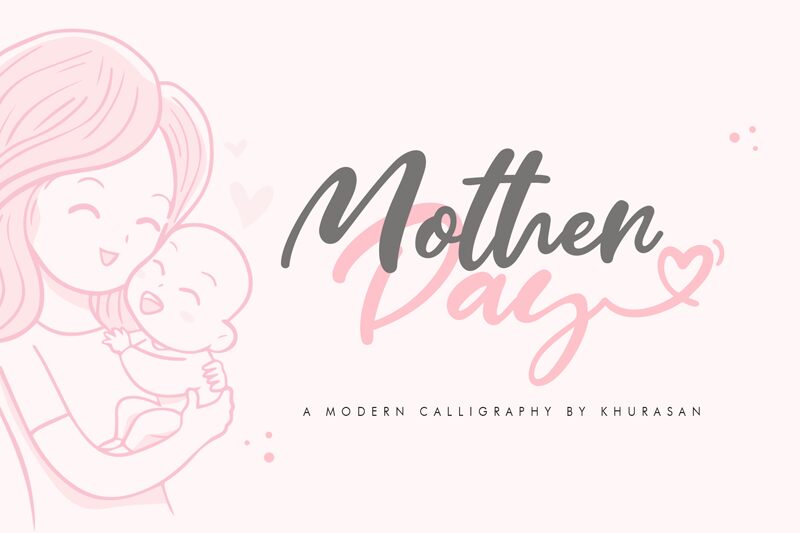
Mother Day font family by Khurasan is a beautiful calligraphy typeface presented in 2 font styles. This font family was professionally designed with the focus on versatility, elegance, and maximum efficiency, which is evident from every single character within. Swash caps alternate lowercase and uppercase cursive characters aim for the look of authentic handwriting and thus make amazing typographic effects.
This font combines both ease of use and flexibility to minimize your effort and best showcase your graphic designs in just a few minutes. Get creative with your wedding design project, official invitations, guest cards, titles and cover of romance novels, packages of cosmetics and luxury handmade accessories, branding ideas, printed items, food packaging, greeting cards. The font also works wonders to highlight the title or headings in your website design, social media platforms, posters, banners, and even as part of a logo or product labels.